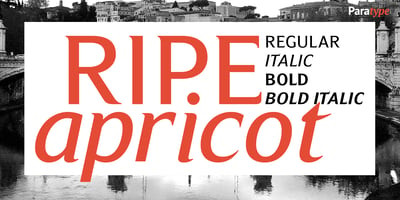
Ripe Apricot Font is a wonderfully warm and inviting typeface, perfect for designs that aim to convey a sense of natural charm, handcrafted goodness, or a sweet, wholesome aesthetic. Its organic, slightly irregular forms, reminiscent of a freshly picked fruit, make it an excellent choice for farmers' market branding, organic food packaging, homemade goods labels, and cozy café menus. Imagine it bringing a friendly and earthy feel to a bakery's website, adding rustic appeal to garden center signage, or providing a wholesome touch to recipe blogs. This font is also superb for children's snack packaging, seasonal event posters, and any project where a natural, approachable, and comforting visual identity is key. It doesn't just display text; it whispers of sun-ripened sweetness and genuine craftsmanship.
What makes Ripe Apricot Font so exciting is its immediate ability to evoke feelings of warmth, simplicity, and authentic, natural beauty. Its gentle curves and charming imperfections give it a unique personality that feels handmade and sincere, standing out from more rigid or overly polished typefaces. This distinctive character makes it a fantastic choice for designers looking to infuse their projects with a personal, down-to-earth, and inviting atmosphere. It’s a font that speaks with a soft, friendly voice, making it ideal for brands and content creators who want to connect with their audience on a genuine, wholesome, and comforting level. Its endearing appeal can make any design feel more personal and delightfully appealing.
The Ripe Apricot Font family, given its often artistic and bespoke nature, might not always feature the extensive weight variations seen in more traditional typefaces. However, it typically offers different styles or complementary elements that enhance its unique aesthetic and provide creative flexibility. You might find variations such as:
Ripe Apricot Regular
Ripe Apricot Bold (for added emphasis while maintaining the organic feel)
Ripe Apricot Italic (for a slanted version)
Ripe Apricot Alternates (additional character variations for more natural randomness)
Ripe Apricot Dingbats/Ornaments (often included as decorative leaves or fruit icons)